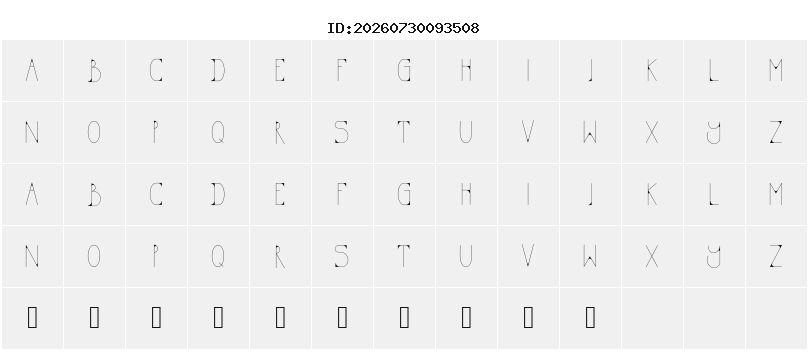
KODA Preview
• Font Name: KODA
• Full Font Name: KODA
About KODA.ttf
KODA.ttf is a modern, elegant sans-serif font designed for ultimate readability and visual harmony. Perfect for branding, headlines, web design, and print materials.